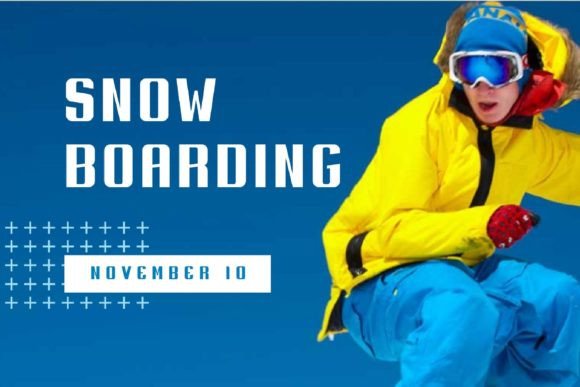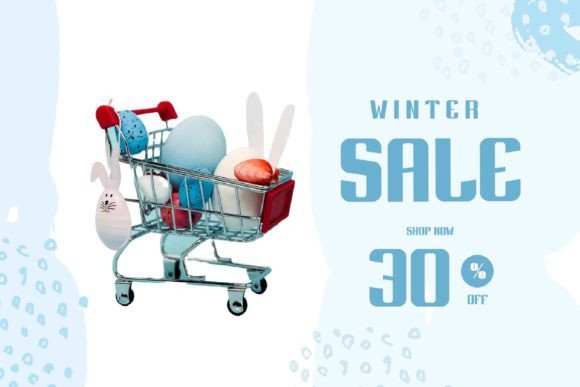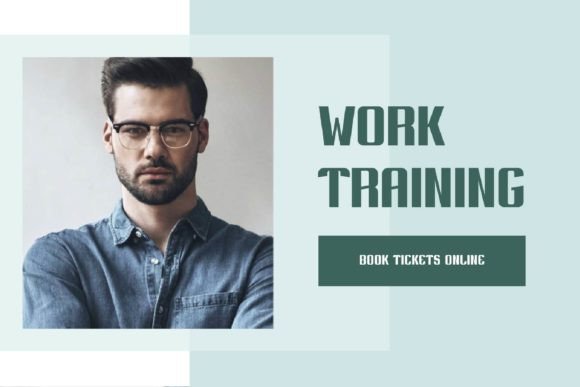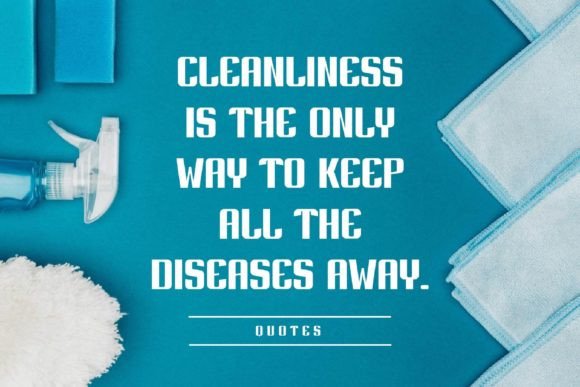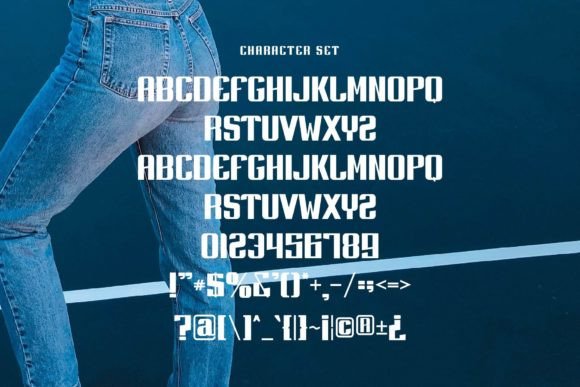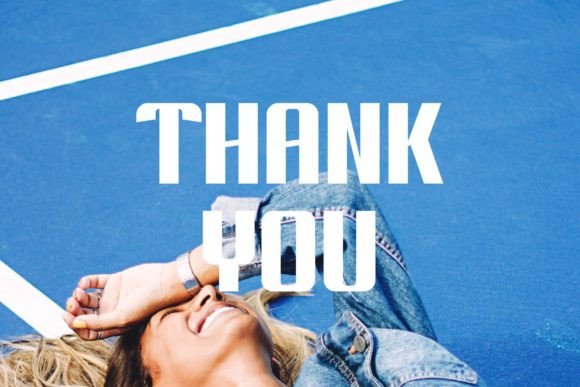
Introduction to Gheray Font
Gheray Sans Font Typeface inspired by the famous minimalist logo perfect for the purposes of designing templates, brochures, videos, advertising branding, logos, invitation, layout design, elegant crafting, beauty design and other.
Key Features of Gheray Font
Why Choose Gheray Font?
Gheray Font offers exceptional quality and versatility, making it a valuable addition to your design toolkit. Whether you’re creating for personal projects or commercial use, Gheray Font delivers professional results.